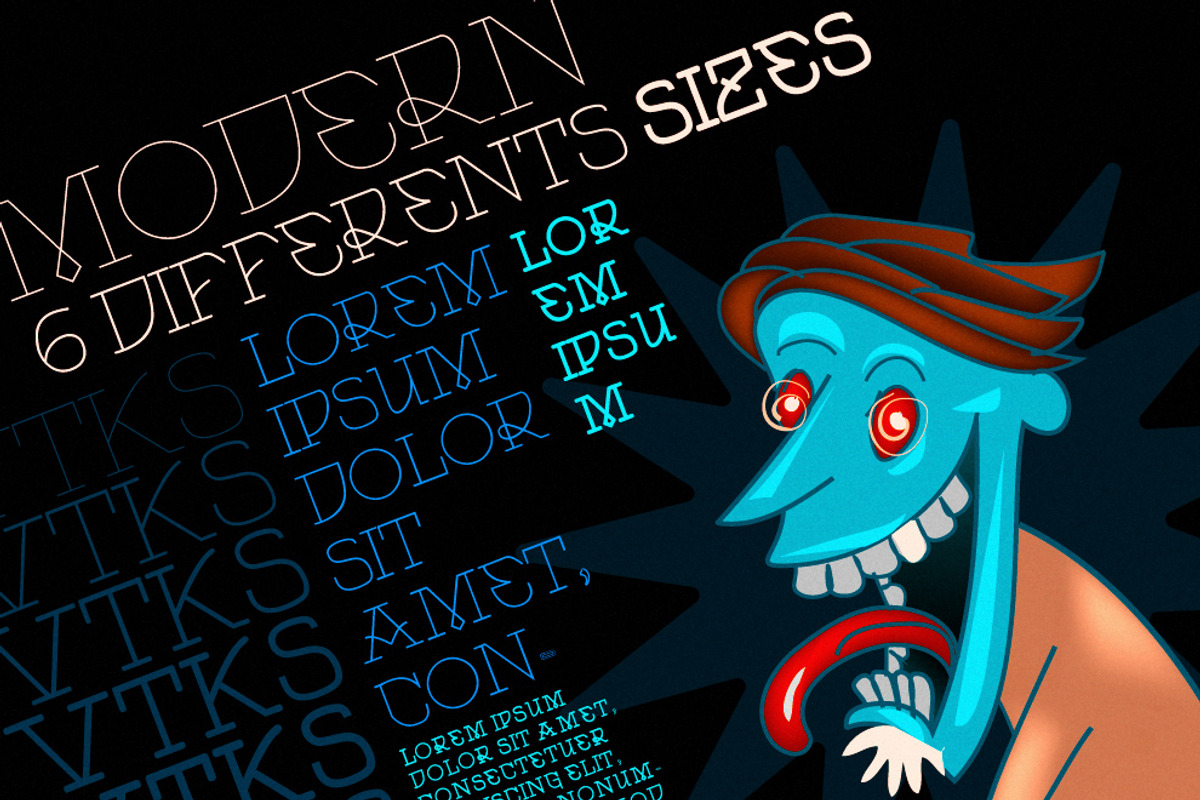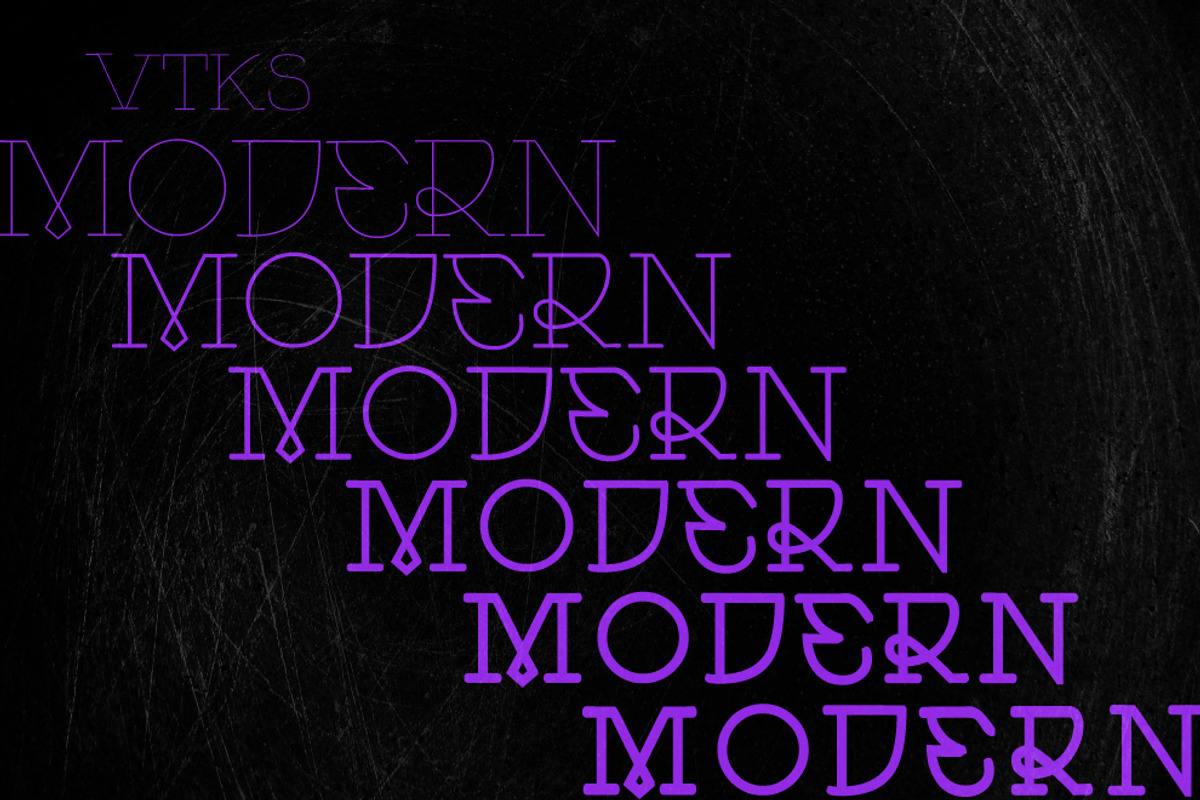
Modern Font By Vtks
Modern Font By Vtks by VTKS, a Font by vtks design is a font selected for branding, posters, packaging, typography.
Why Modern Font By Vtks is worth a look
Modern Font By Vtks by VTKS, a Font by vtks design fits naturally into Branding, posters, packaging, typography.